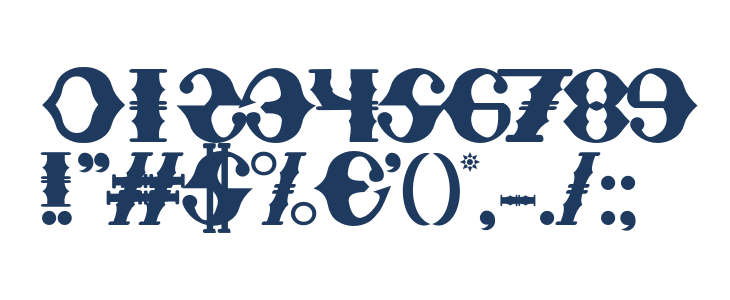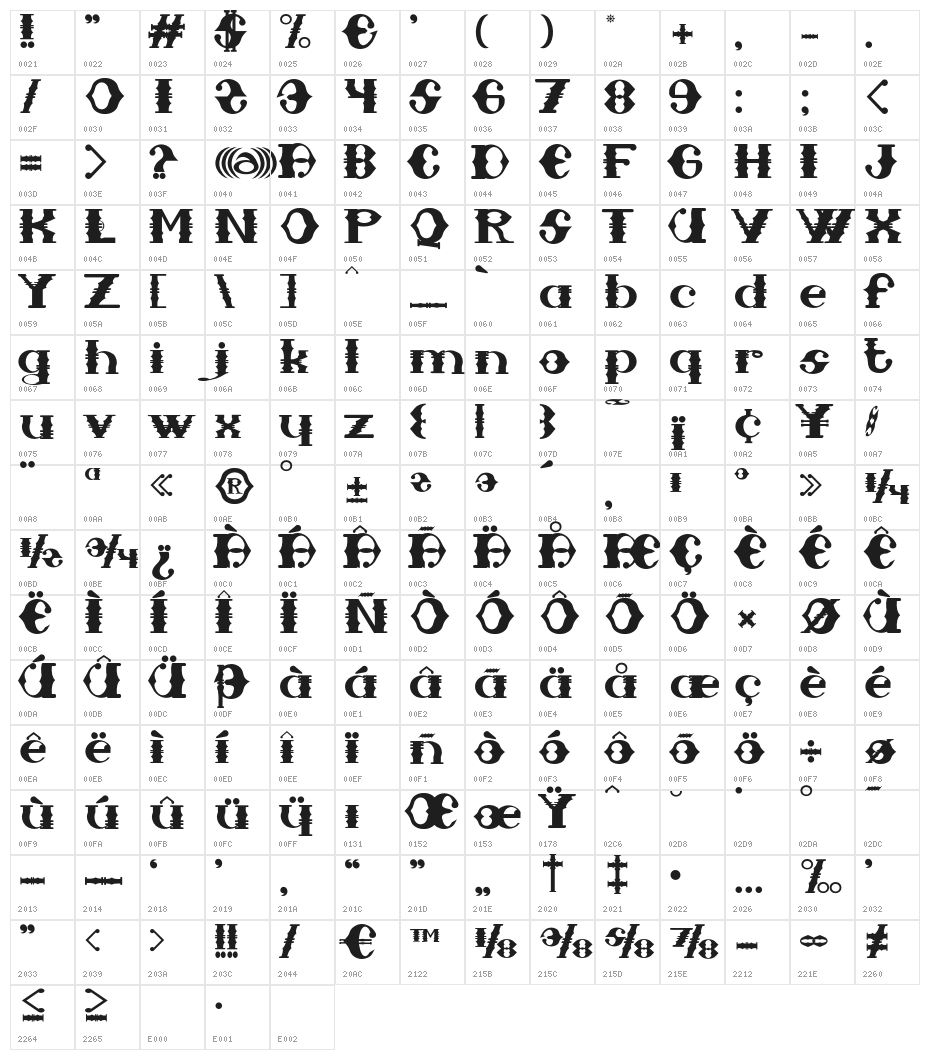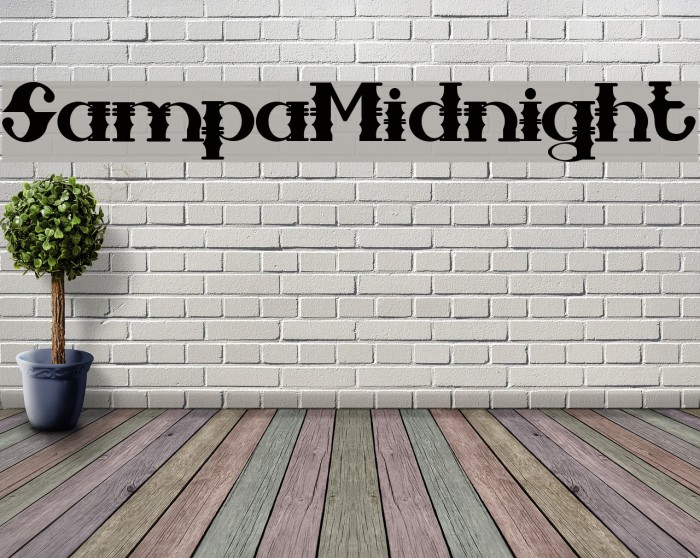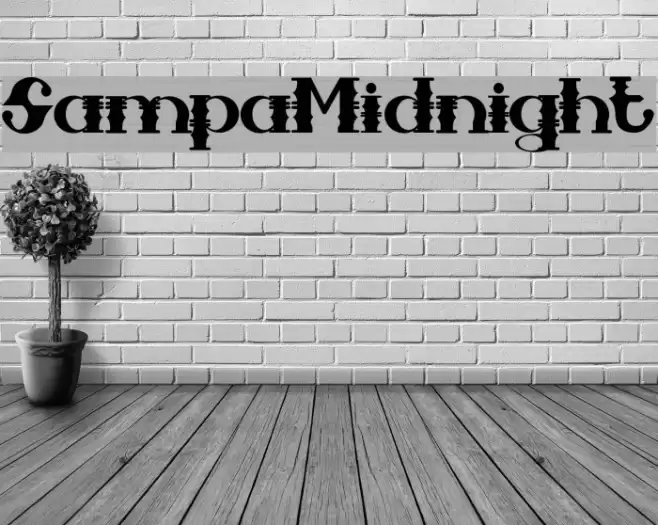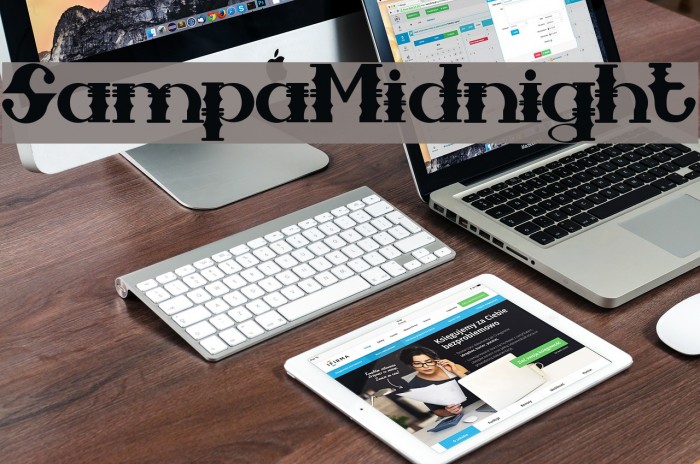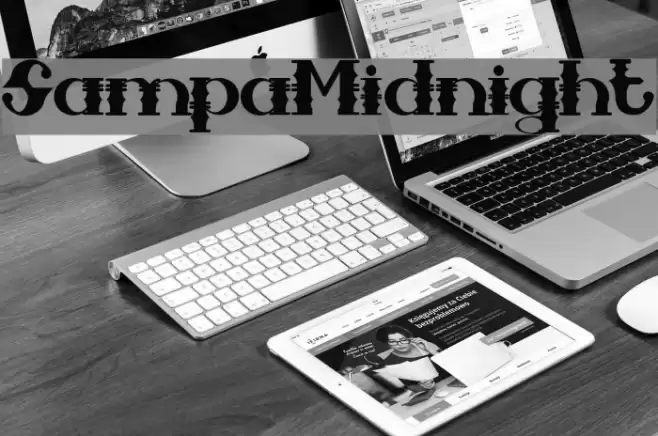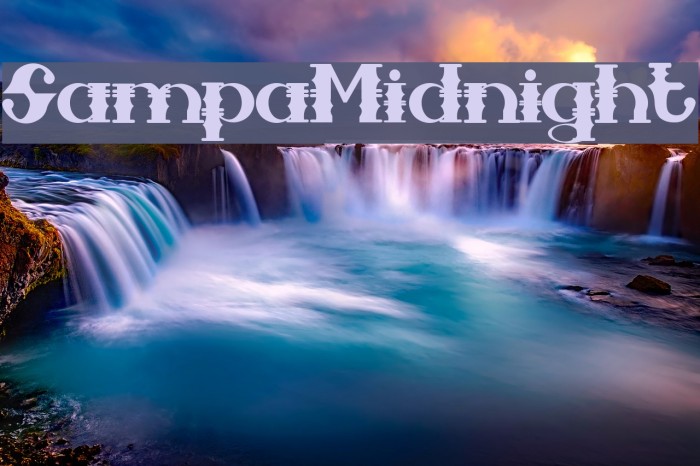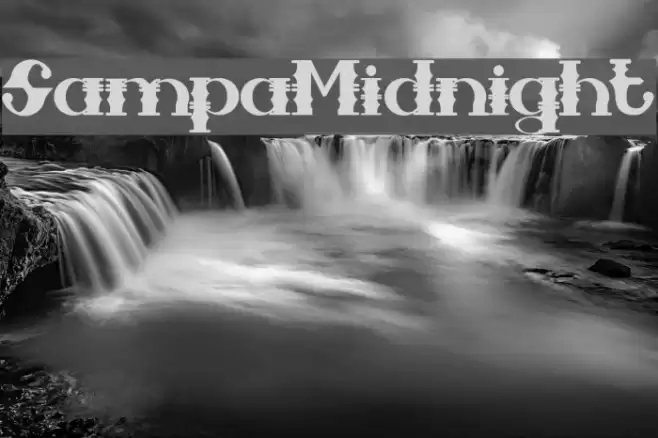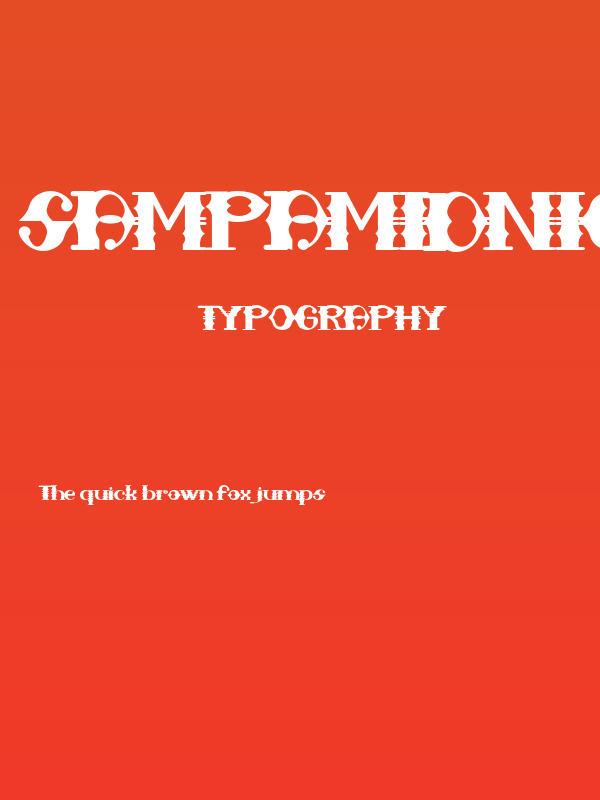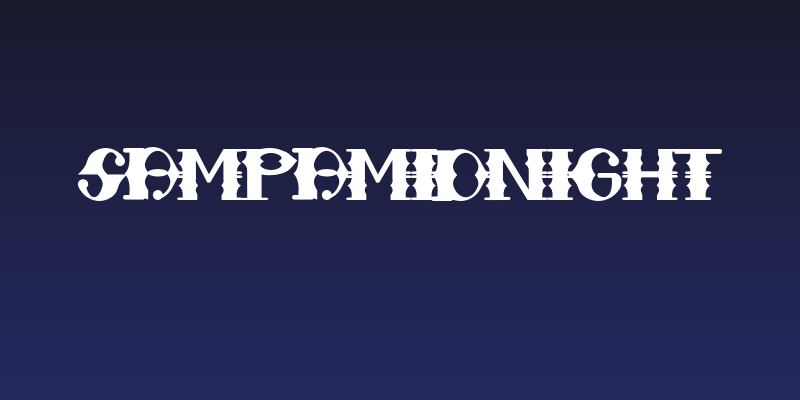
SampaMidnight Font
SampaMidnight Description
This font exhibits a unique and bold design with intricate details and a high level of contrast. The characters are adorned with decorative elements that give them a distinct, almost gothic appearance. The uppercase and lowercase letters maintain a consistent style, with sharp edges and elaborate serifs. The numbers and special characters follow the same ornate pattern, making the font suitable for eye-catching designs. The overall look is both dramatic and artistic, making it ideal for projects that require a strong visual impact.
| Proposed Projects | Ideal for posters, album covers, branding, and any project that requires a dramatic and artistic touch. |